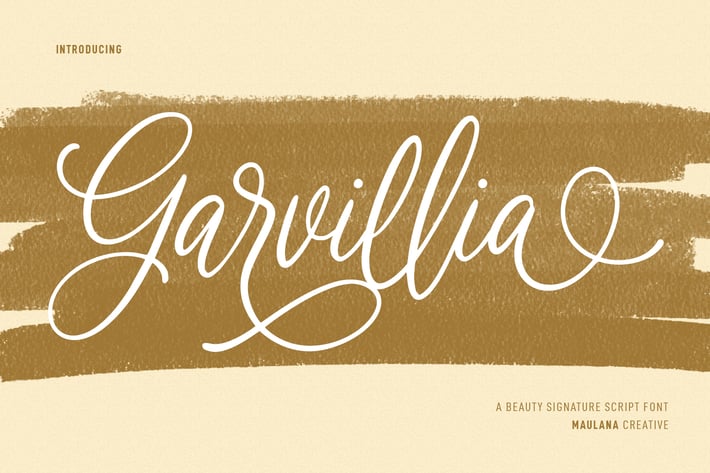
Garvillia Beauty Script Font
Garvillia is a beauty script font. With light contrast stroke, fun character with a bit of ligatures and alternates. To give you an extra creative work. Garvillia font support multilingual more than 100+ language. This font is good for logo design, Social media, Movie Titles, Books Titles, a short text even a long text letter and good for your secondary text font with sans or serif. Make a stunning work with Garvillia font.